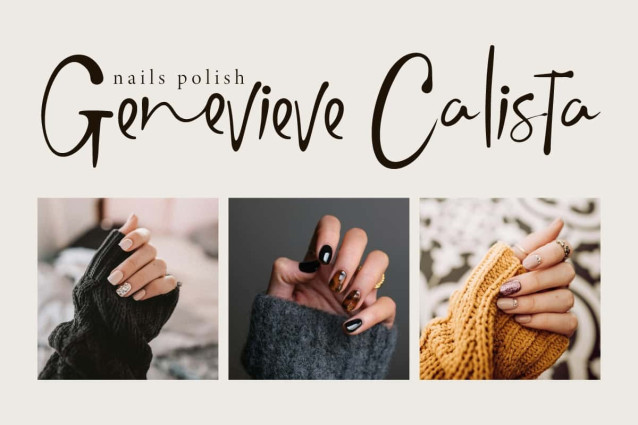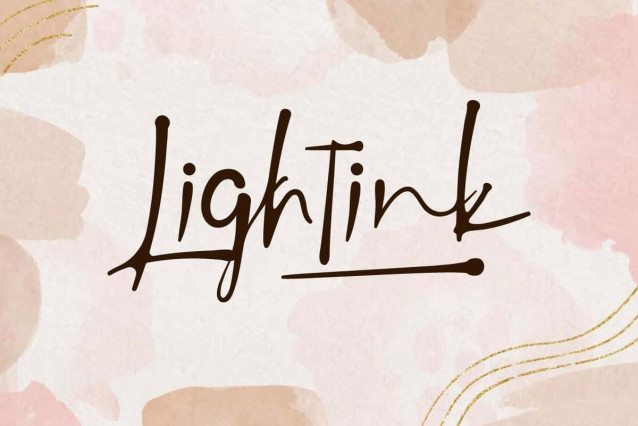
Lightink Script Font
Lightink Script Font is a brush graffiti font with a cool and warm modern touch. This font will be suitable for many industries, such as advertisement, author and writer, beauty product, event or festival, florist, handicraft, homeware, jewelry and accessories, printing, publishing, and more!
Lightink Font includes full set of Uppercase and Lowercase Basic Characters, Numerals, Punctuation, Symbol, Ligature, Alternate, and Swoosh character. Its natural curved lines give a personal impression, as if written directly by hand. Making it a perfect choice for many design, such as brand image, brochure, business card, cover, custom designs, invitation, label, packaging design, poster, quotes, screen printing, website, etc.